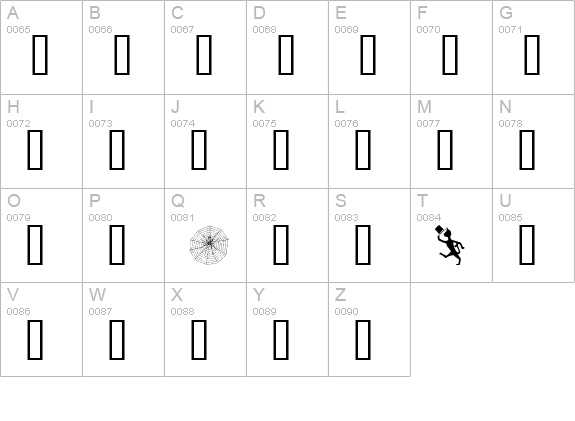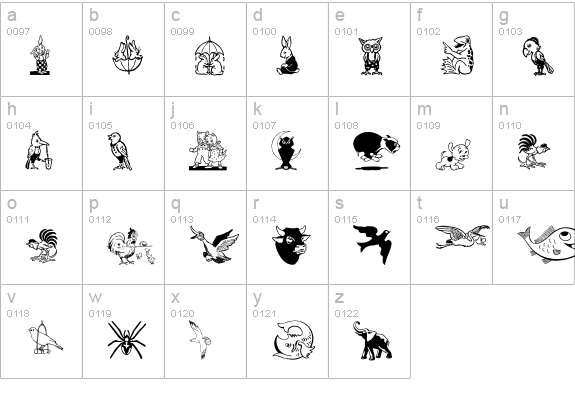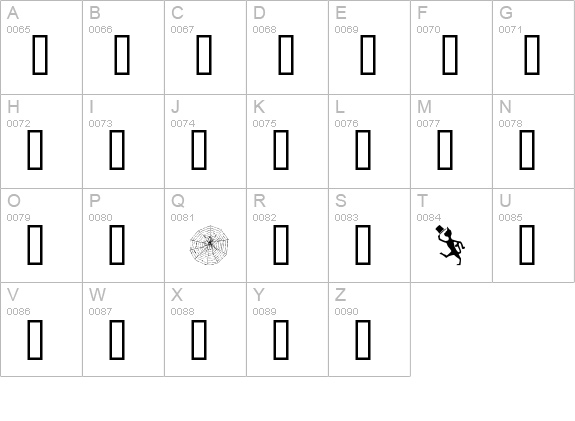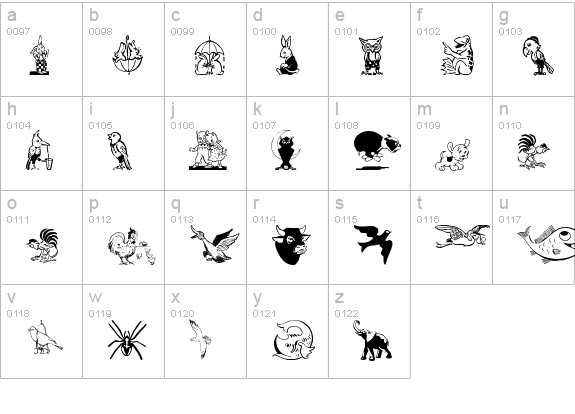
Karen Helenes Dingbats Font Details
Introducing Karen Helenes Dingbats font – a delightful and whimsical typeface that is sure to add a touch of charm and playfulness to your design projects. This unique font is carefully crafted with intricate and intricate details, making it perfect for adding decorative elements and embellishments to your work. With its wide range of symbols and icons, Karen Helenes Dingbats font offers endless possibilities for creating eye-catching designs. From stars and hearts to arrows and animals, this font provides a diverse collection of dingbats that will effortlessly enhance any design. What sets Karen Helenes Dingbats font apart is not only its exceptional style, but also its accessibility. This font is freely available to download at FontsMarket.com, making it easily accessible to designers and enthusiasts alike. Whether you're working on personal projects or commercial endeavors, this font can be used without any limitations or restrictions. Designed with versatility in mind, Karen Helenes Dingbats font can be used in various design applications, including logo design, branding, packaging, invitations, and more. Its playful and whimsical nature makes it particularly suitable for children's books, posters, and greeting cards. The attention to detail and the carefully crafted design of Karen Helenes Dingbats font make it a must-have for any designer looking to add a touch of creativity and fun to their projects. So why wait? Download this wonderful font for free at FontsMarket.com and let your imagination run wild as you explore the endless possibilities it offers.